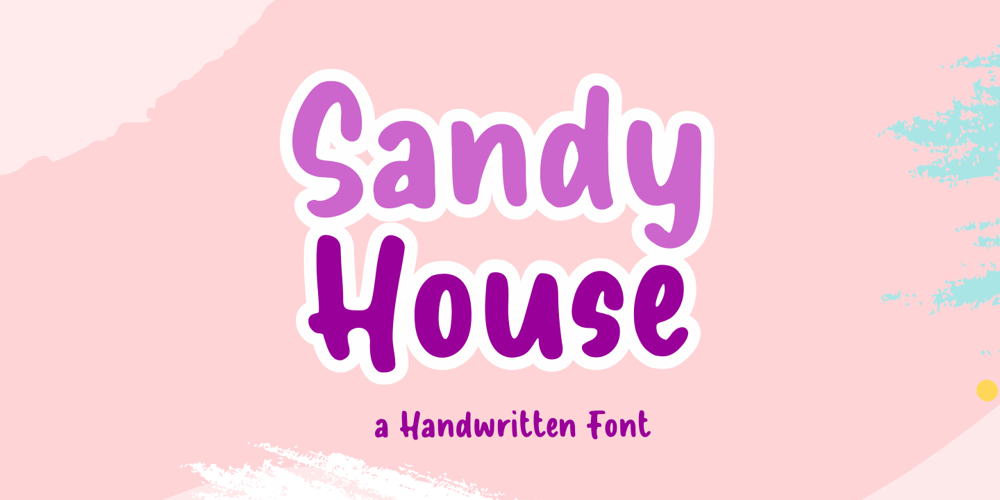
Sandy House Font Family was designed by Muhamad Yusron Billah and published by Sronstudio. Sandy House contains 1 styles and family package options. Sandy House is a fun Handwritten Font, this font Is perfect for lproduct packaging, product designs, label, photography, watermark, special events or anything.Sandy House comes with uppercase and lowercase letters, multilingual symbols, numerals, punctuation